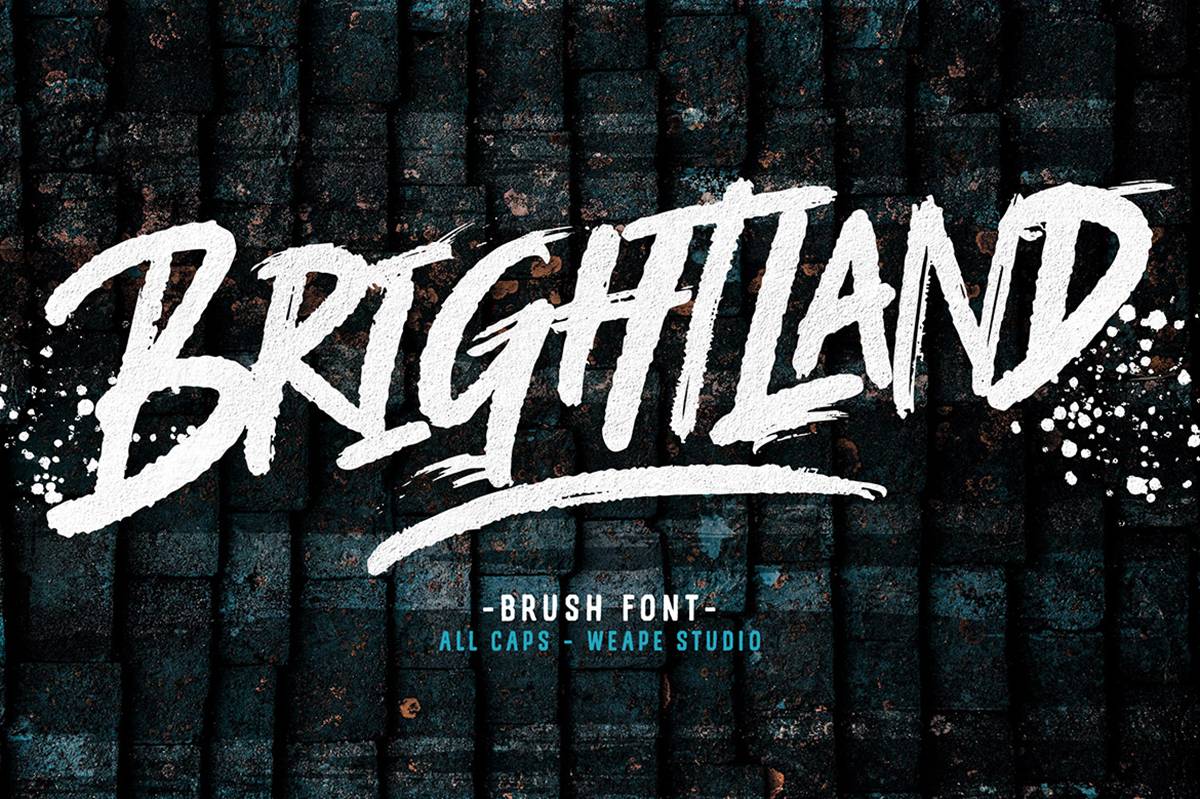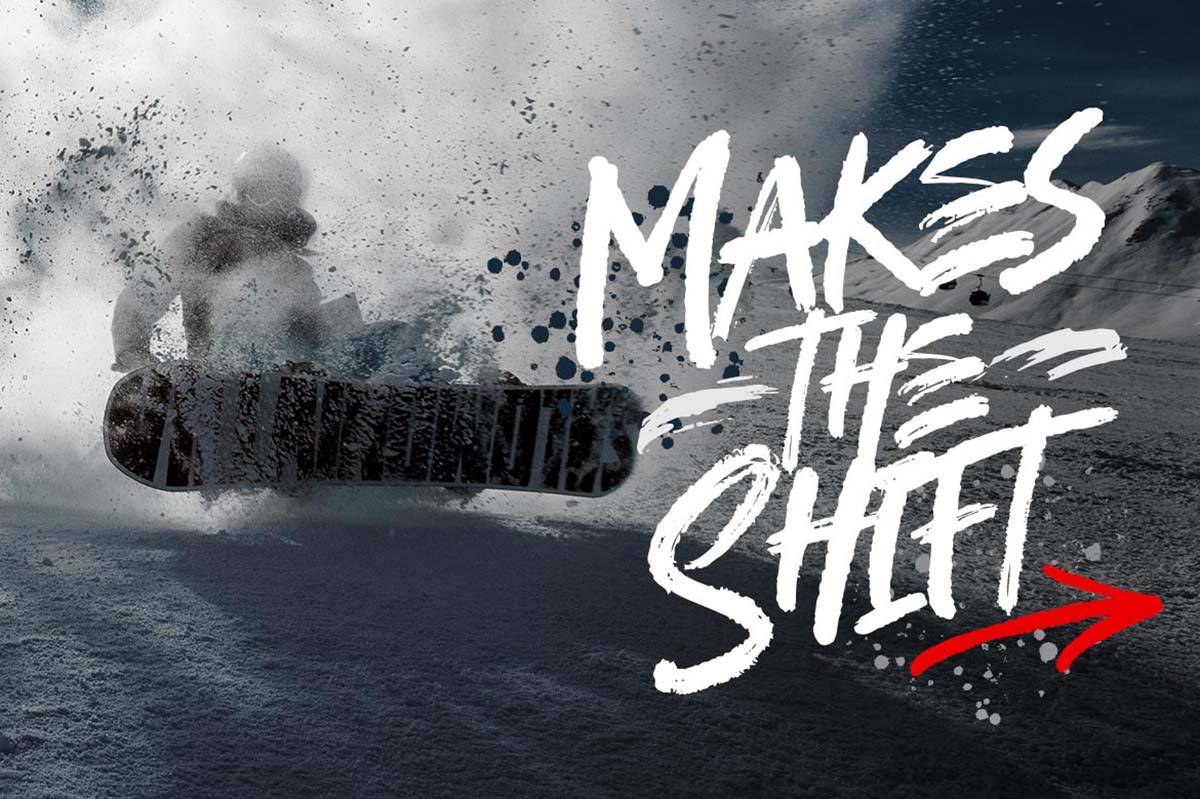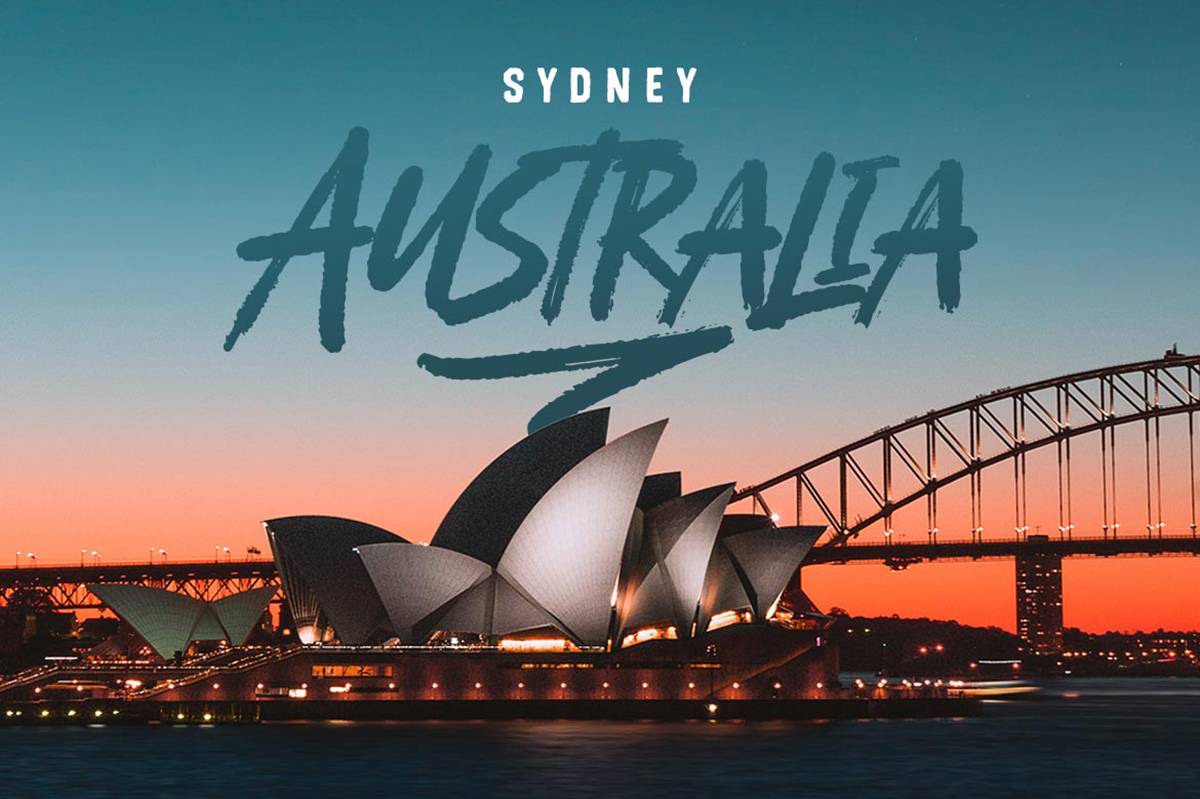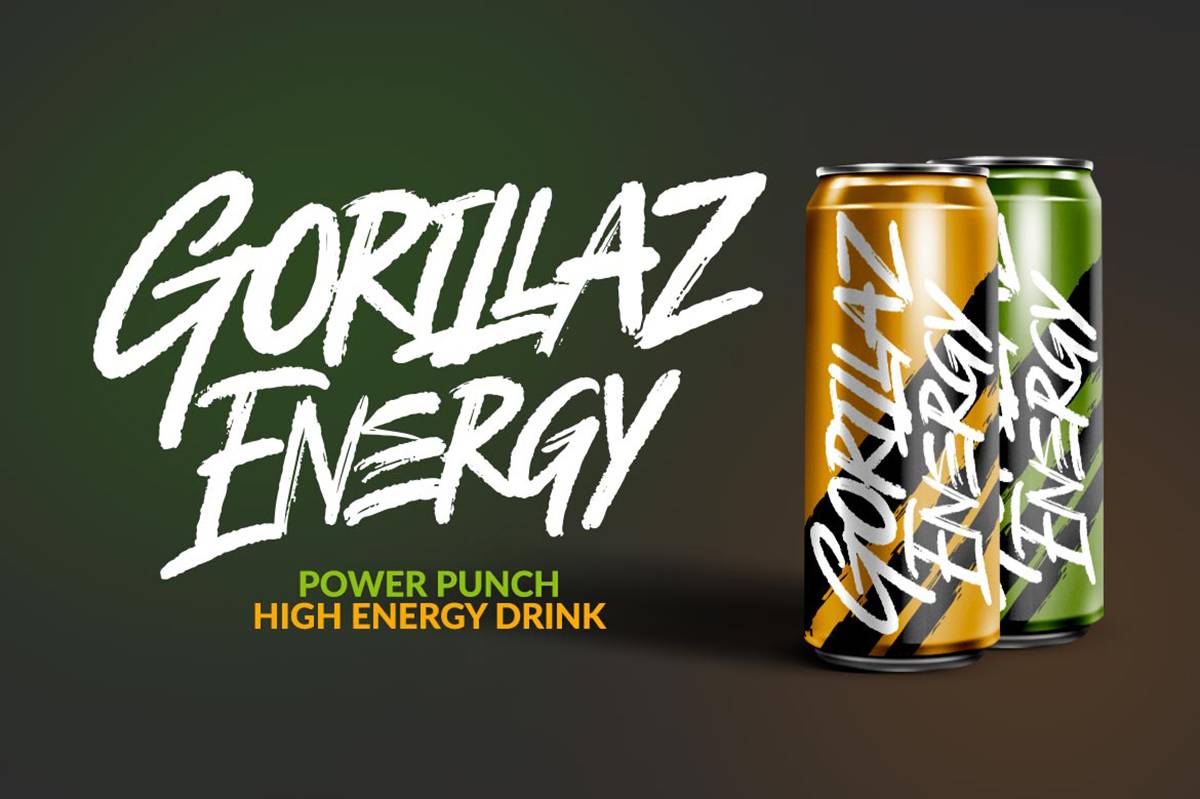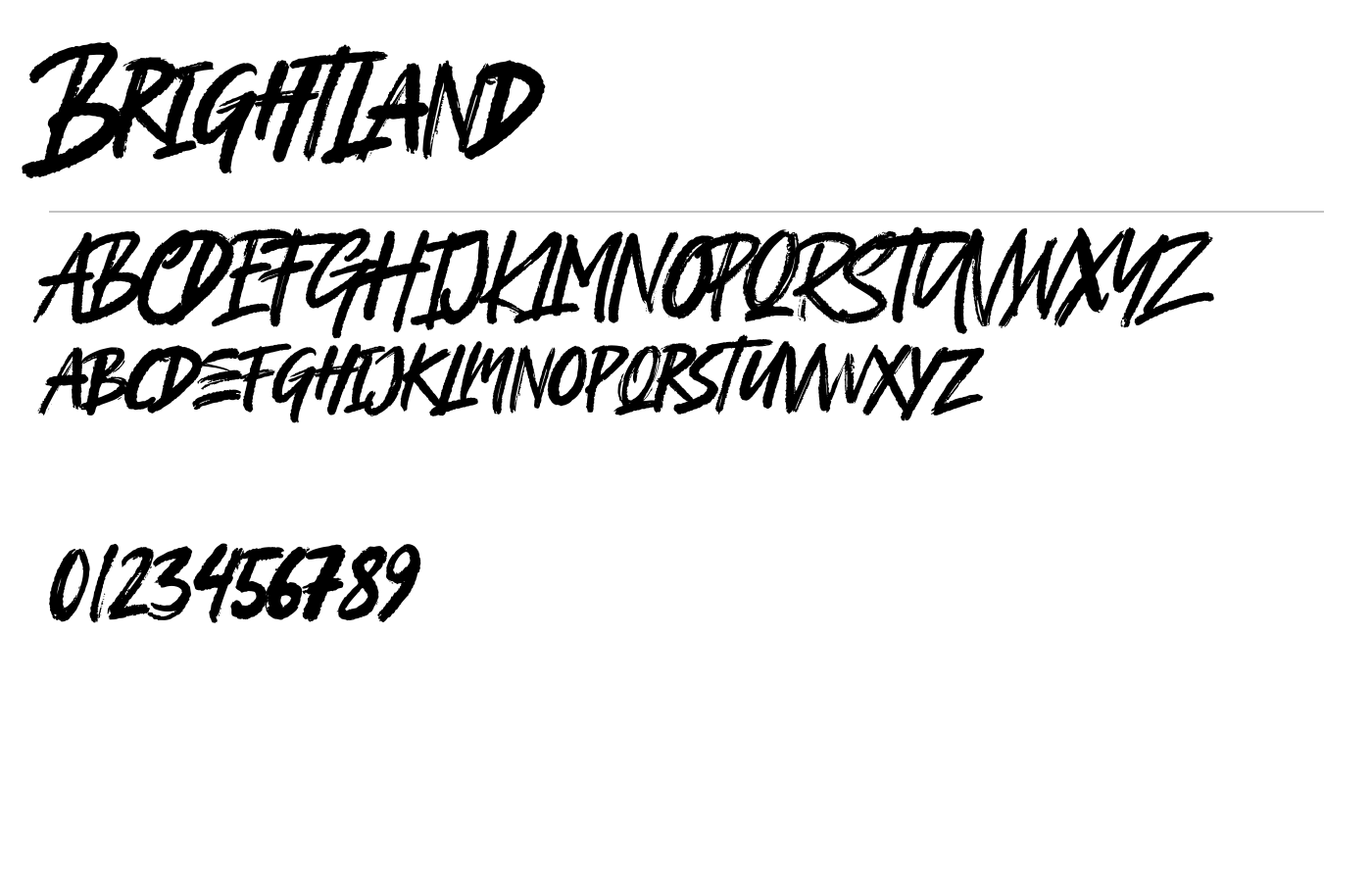
Brightland is a lively, bold brush script font with a rough, hand-painted texture that adds energetic and dynamic character. Its all-caps style and slightly condensed letterforms give it a strong, urban vibe, making it perfect for eye-catching logos, posters, and branding that aims to express creativity and a youthful, adventurous spirit. This font works well where a casual yet impactful look is needed, especially in designs that want to feel spontaneous and authentic.
Brightland Font
About Brightland Font
| Font family | Brightland Font |
| Release date | 2019-05-10 |
| Designer | Weape Studio |